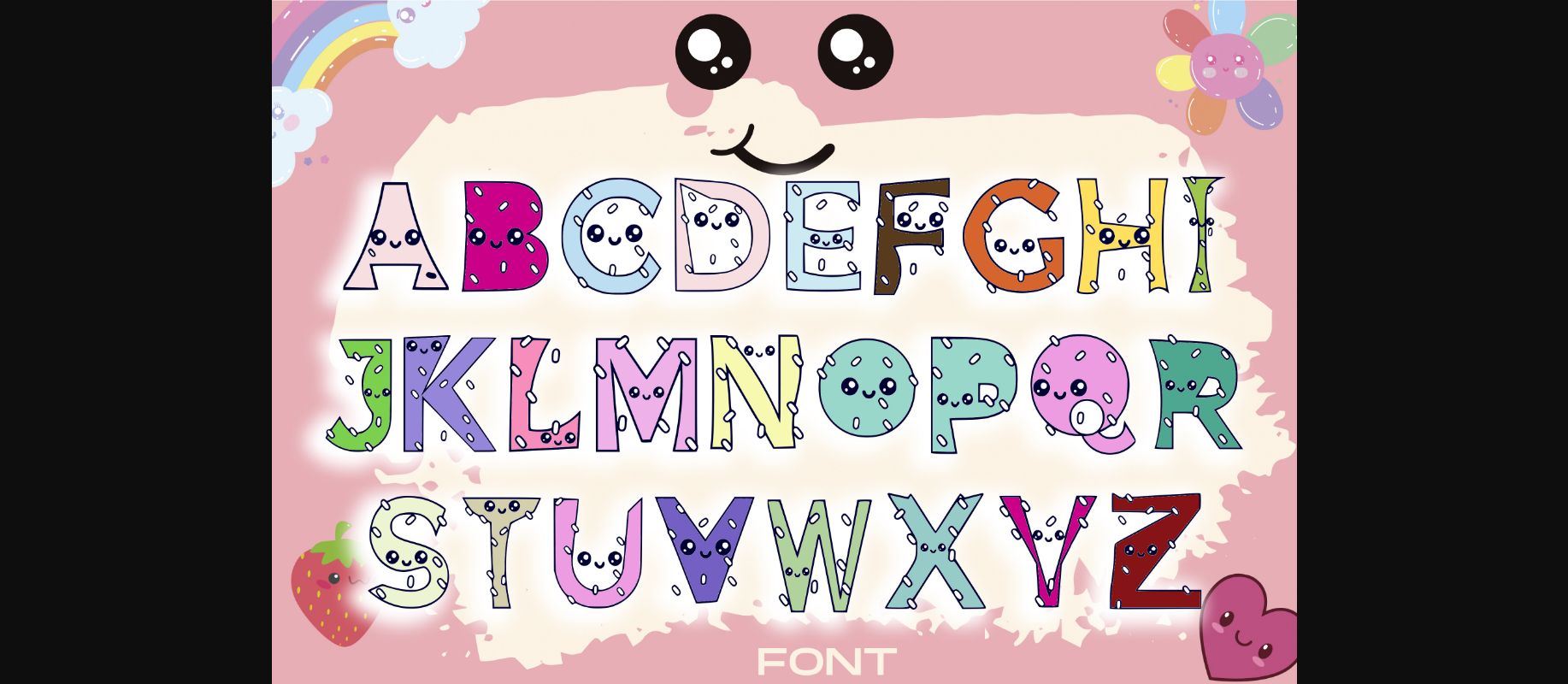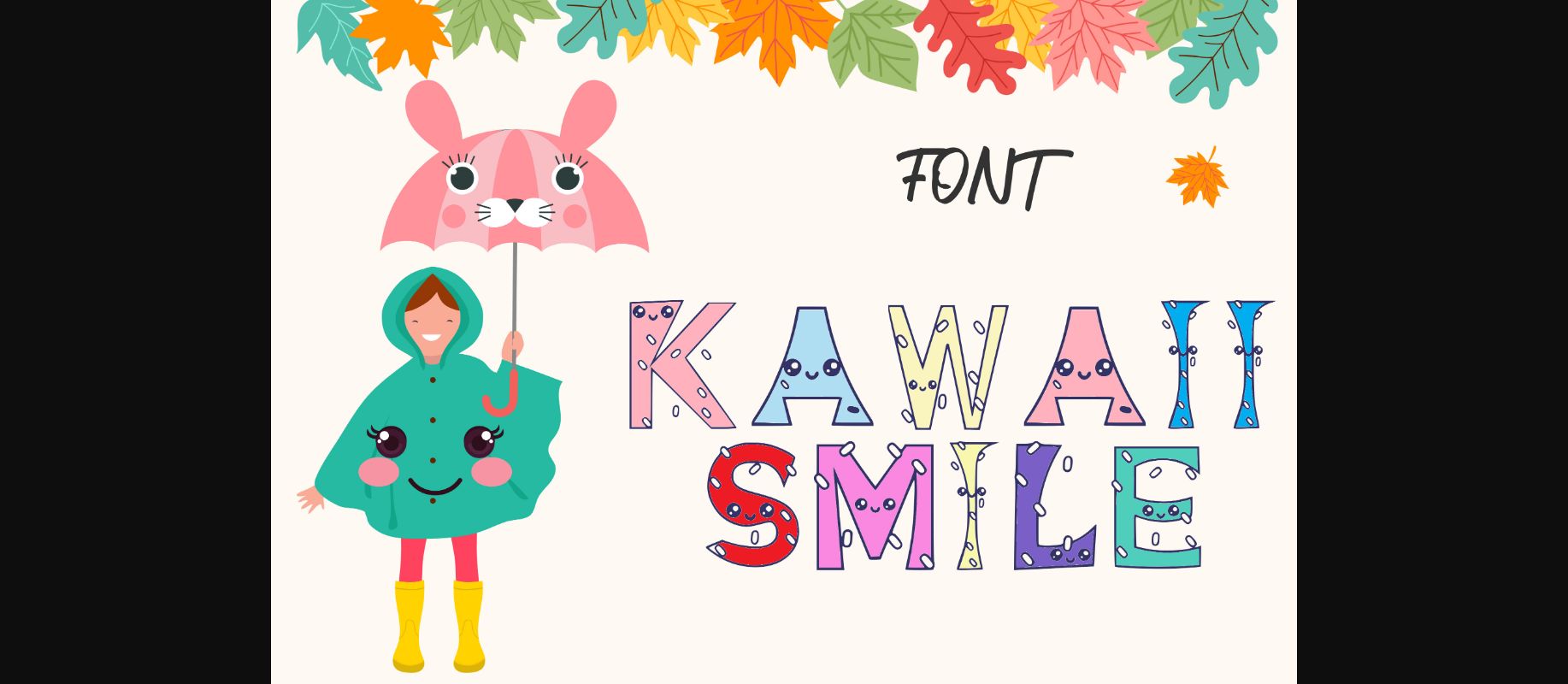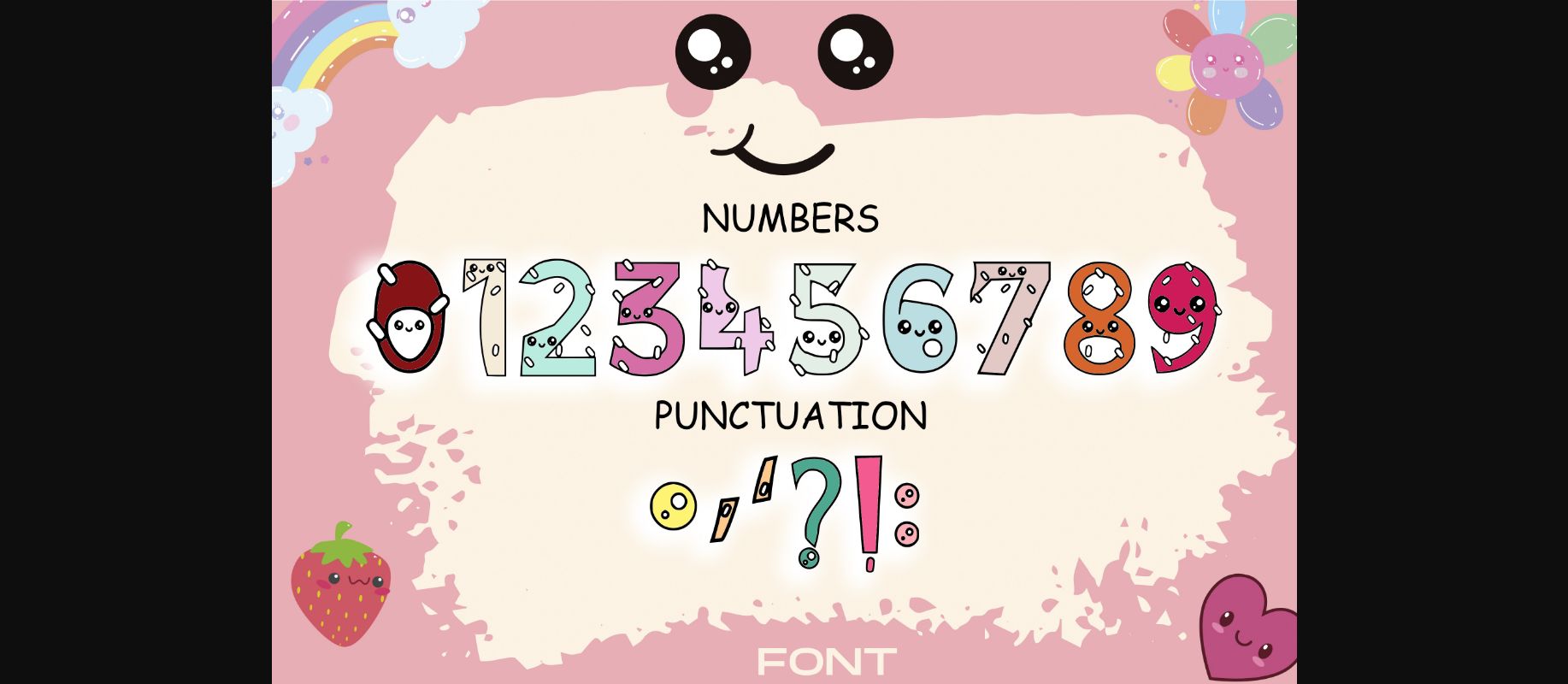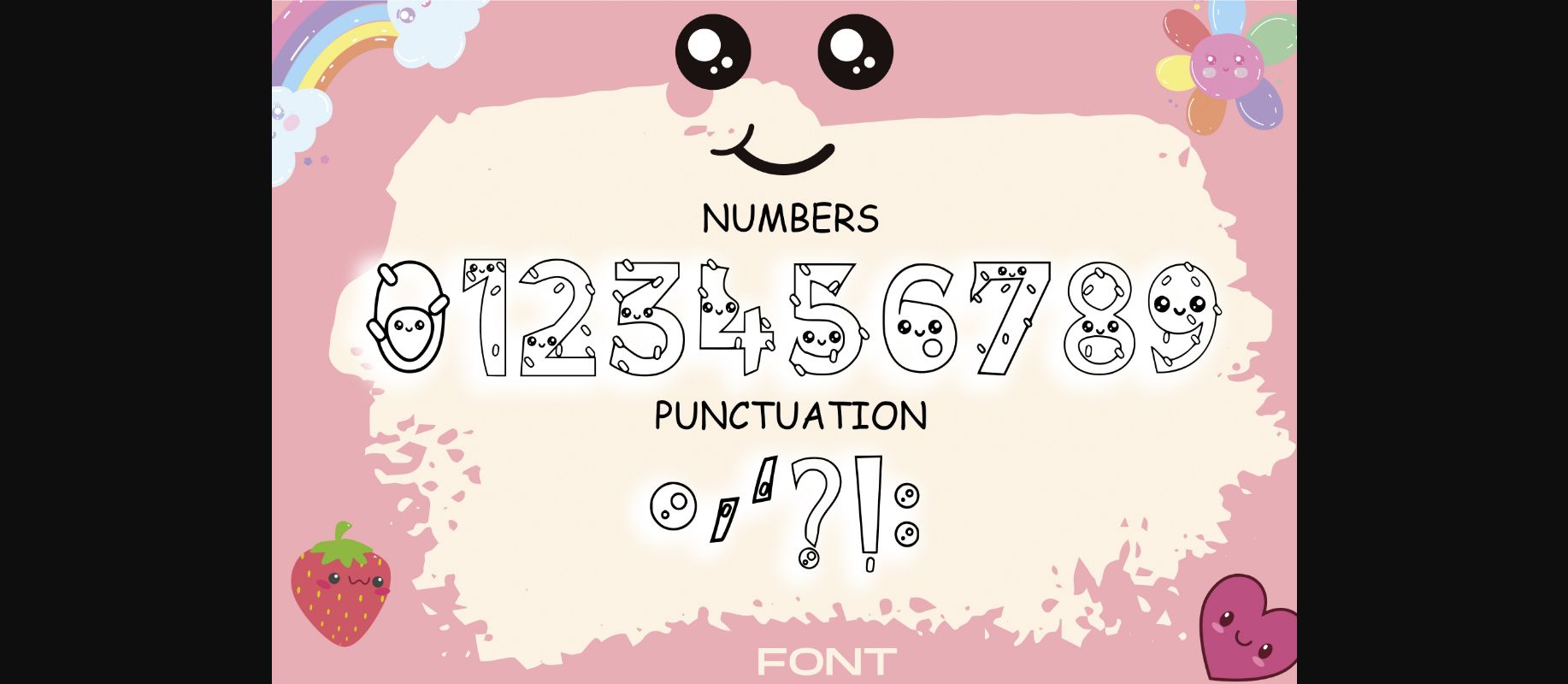
Kawaii Smile Font
About Kawaii Smile Font
Kawaii Smile is a fun, colorful and full of joy decorative font. It embodies playfulness and authenticity and is the perfect choice for any children activity or school project.